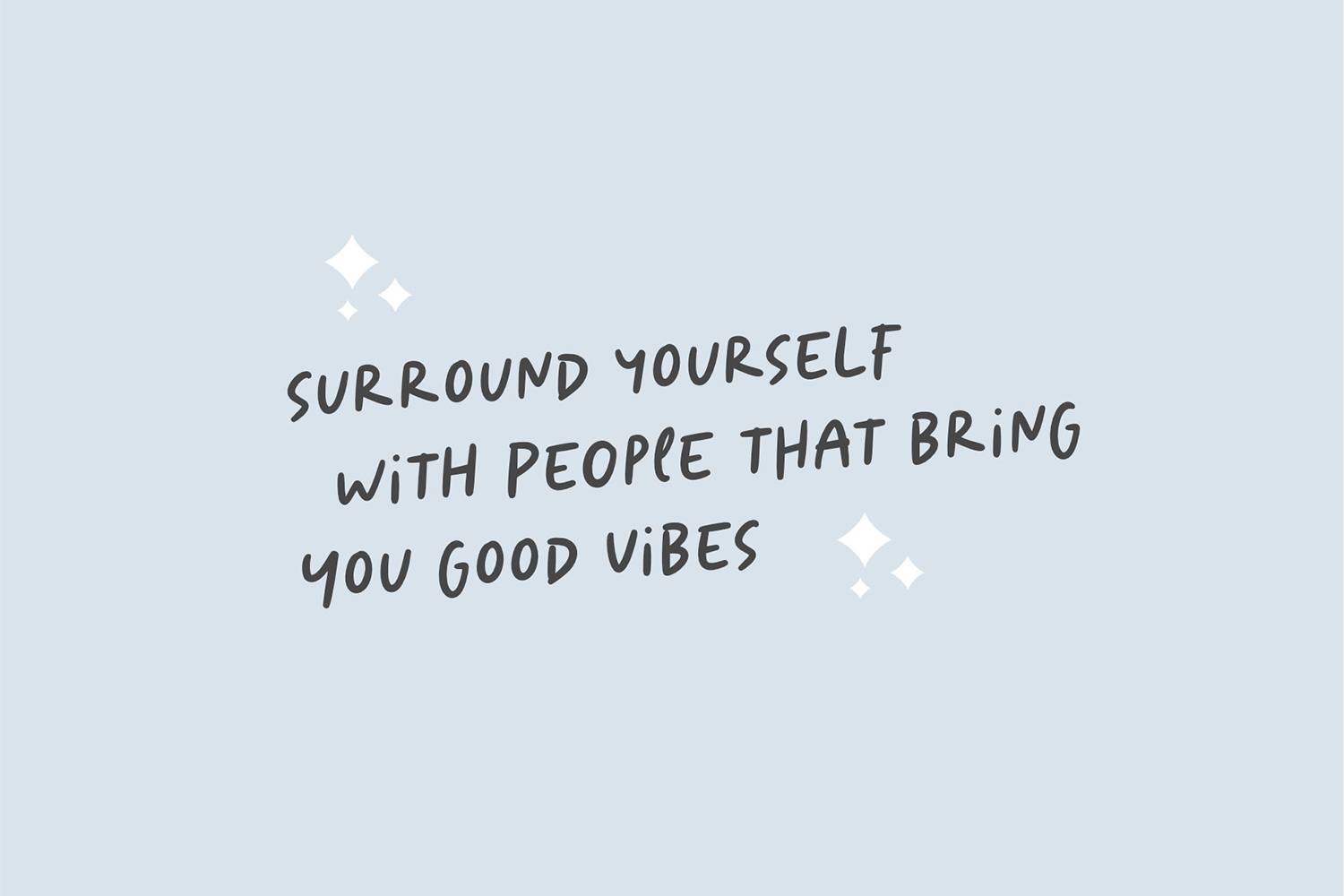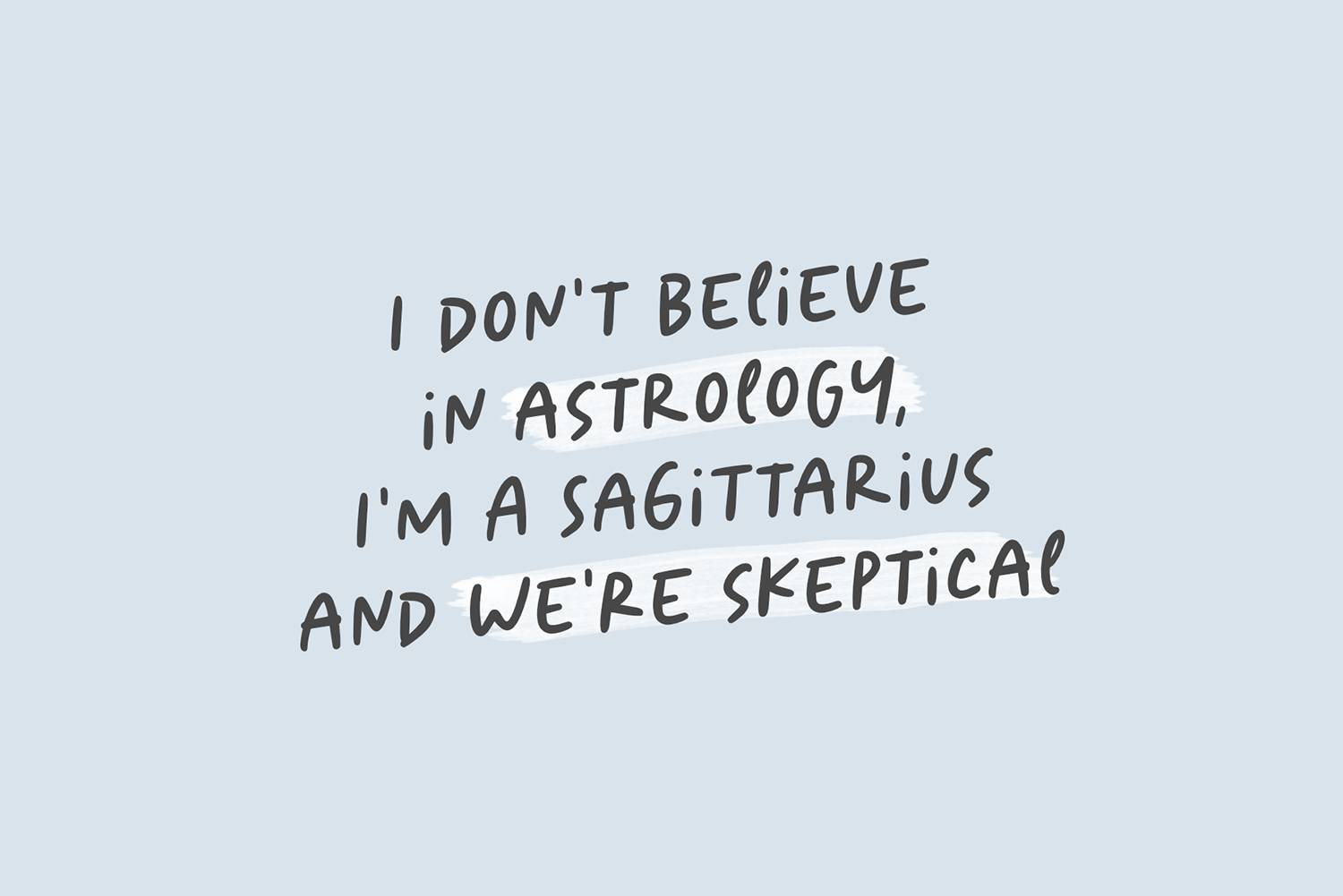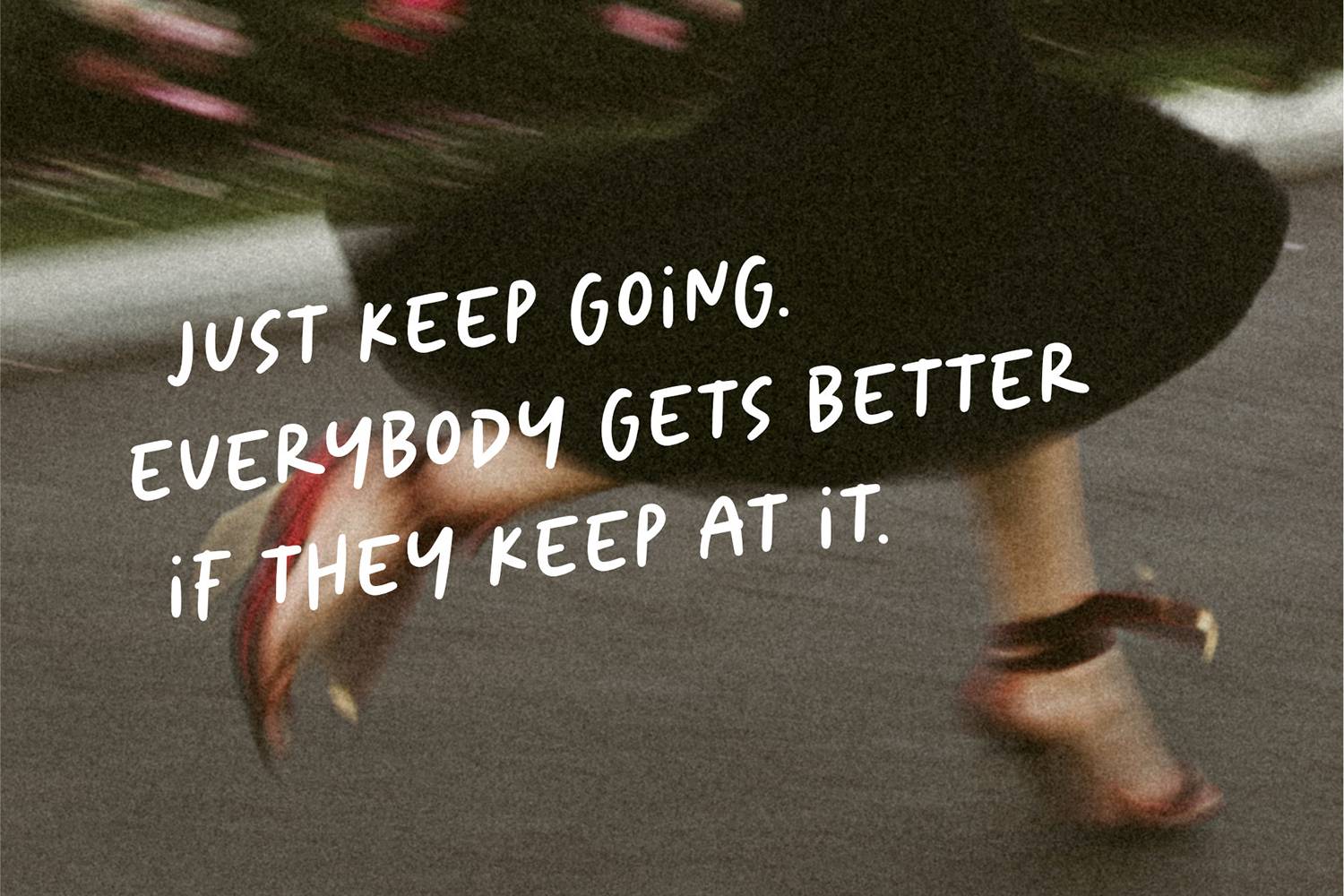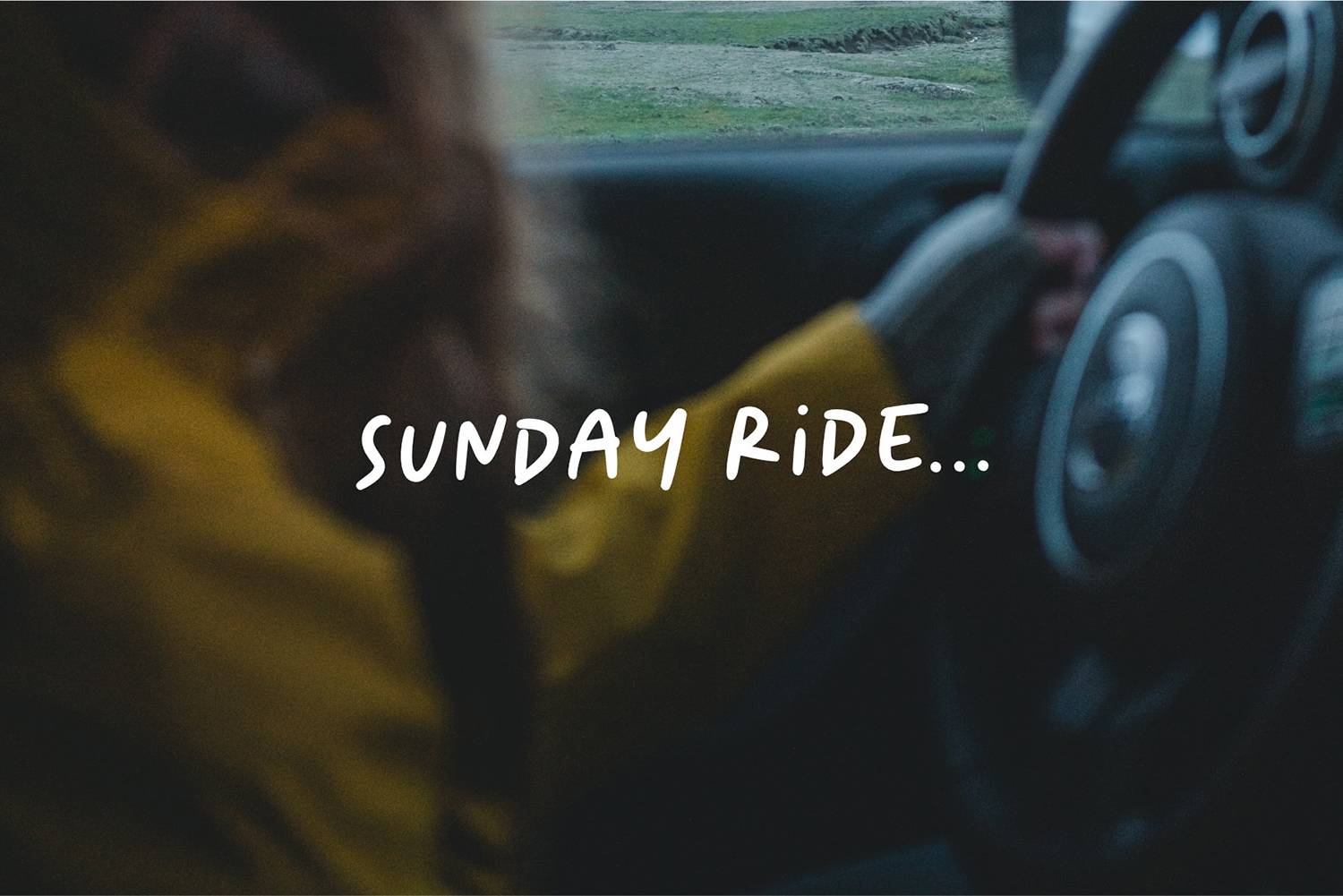
Aesthetic Sage is a lively, casual handwritten sans serif font with a friendly and approachable feel. Its upright, moderately condensed letterforms feature smooth, slightly irregular strokes that evoke warmth and creativity, making it perfect for playful branding, informal headlines, and personal projects. This font works well where a natural, hand-crafted touch is desired, adding a relaxed yet legible style to designs.
Aesthetic Sage Font
About Aesthetic Sage Font
| Font family | Aesthetic Sage Font |
| Release date | 2022-06-19 |
| Designer | Jimtype Studio |